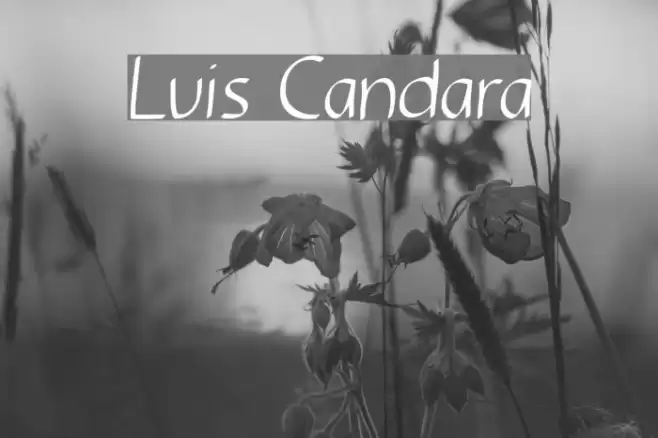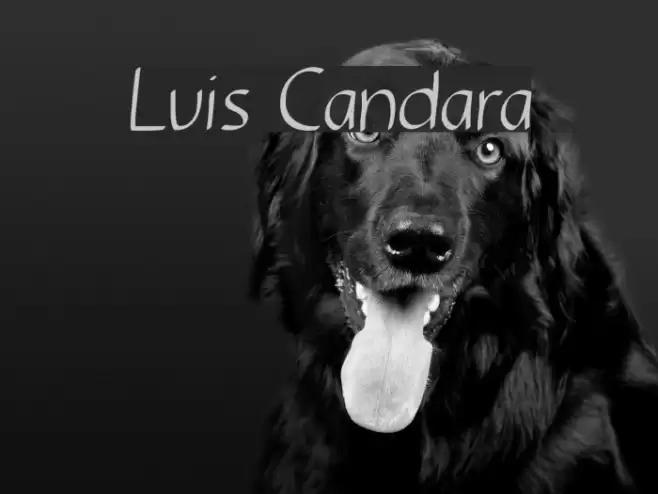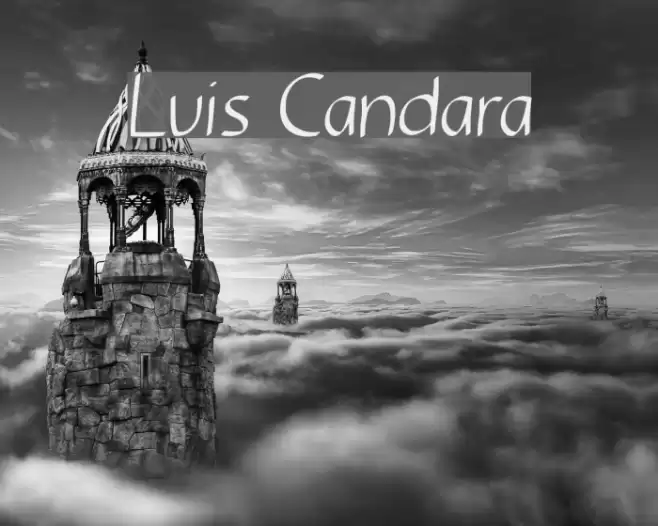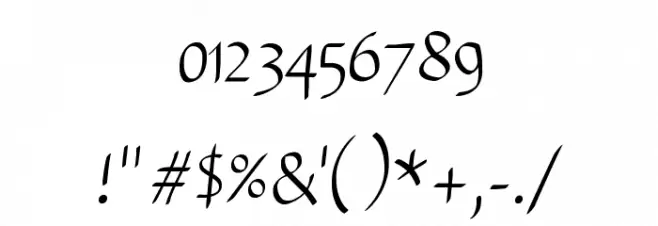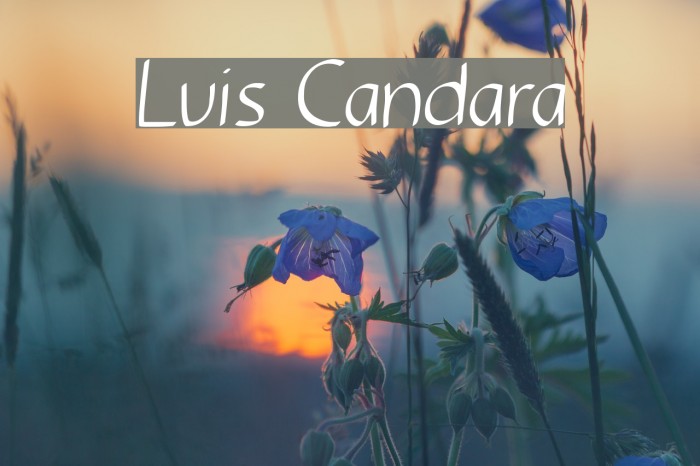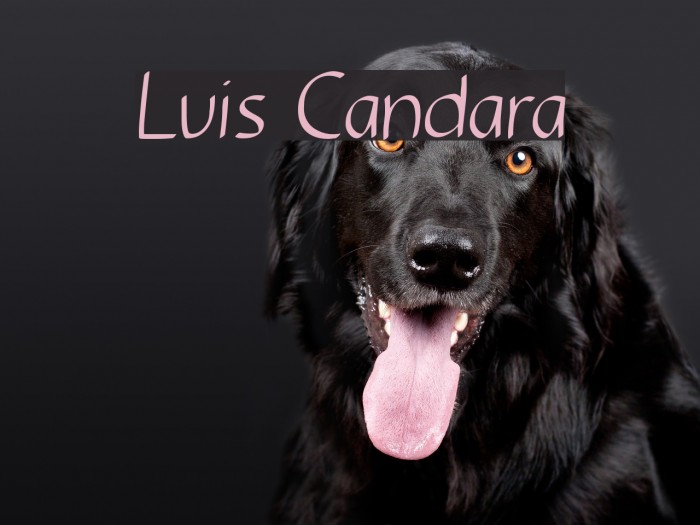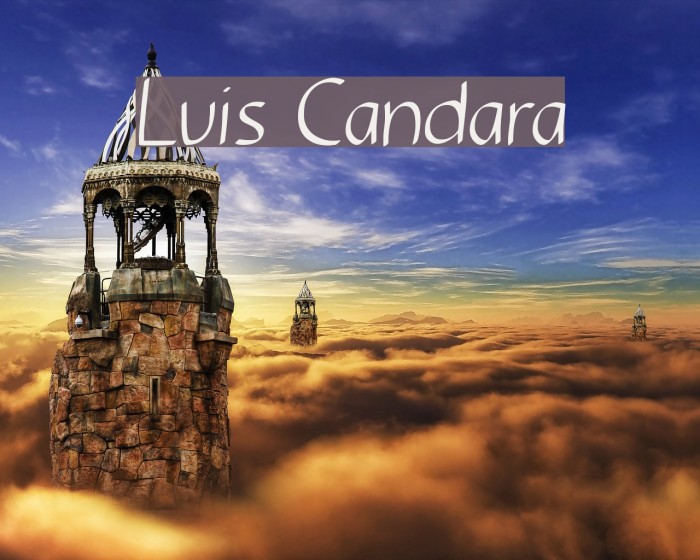
Luis Candara Font
Luis Candara Description
This font features a unique blend of elegance and modernity, characterized by its slightly slanted and flowing letterforms. The uppercase letters are tall and slender, with a subtle curvature that adds a touch of sophistication. The lowercase letters maintain a consistent style, with smooth transitions and a slight inclination that enhances readability. The numerals are designed with a similar aesthetic, ensuring uniformity across the typeface. Special characters are crafted with attention to detail, complementing the overall style. This font's distinct appearance makes it suitable for a variety of design applications.
A modern, elegant font with slanted, flowing letterforms and consistent style from Uncategorized fonts.
- Proposed Projects: Ideal for branding, invitations, editorial design, and elegant packaging.
- Use Case: Logos, Invitations, Editorial design